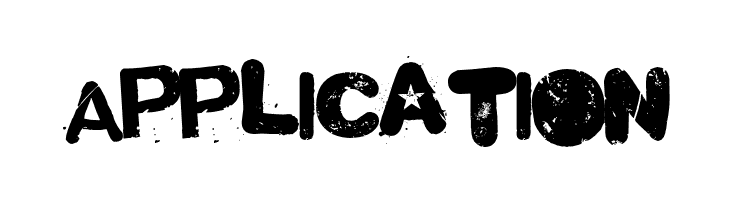
NumbBunny Black Font
- Font: NumbBunny Black
( Fonts by Andrew Hart - dirt2.com )
A bold, distressed font with a grunge texture and star motifs, ideal for edgy designs.